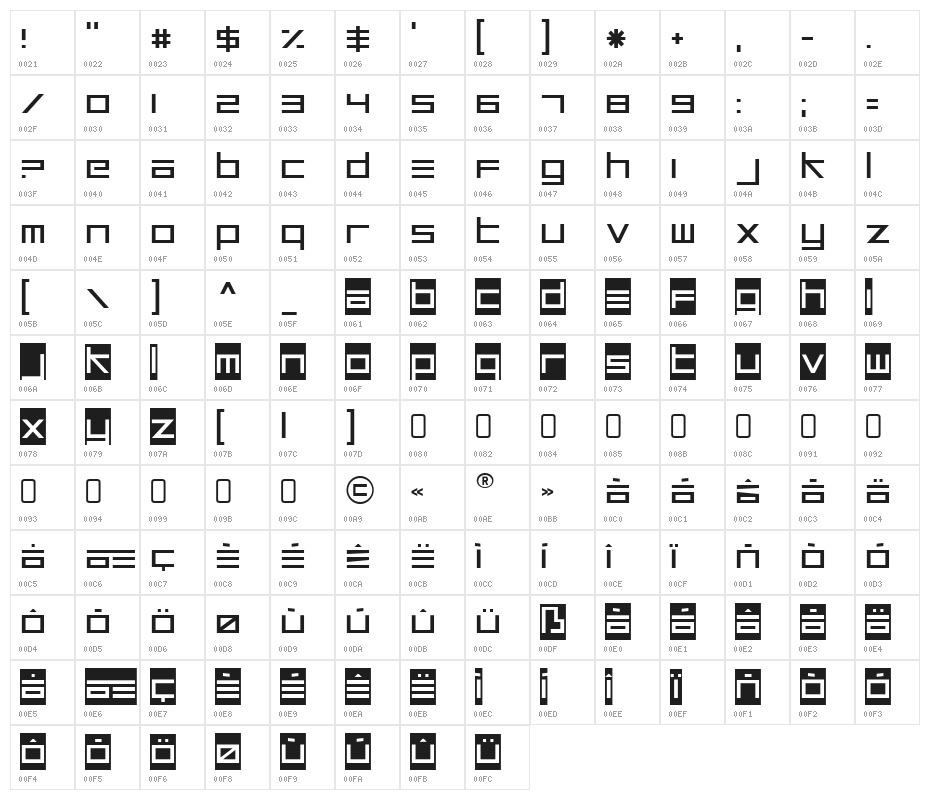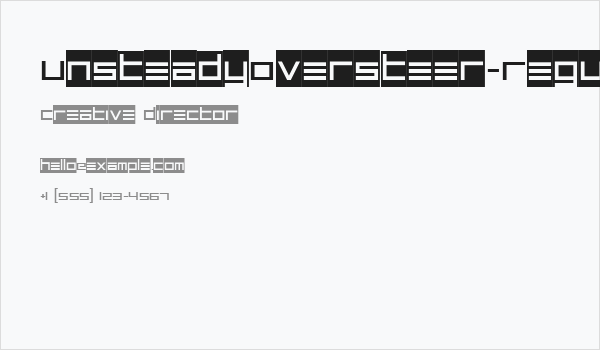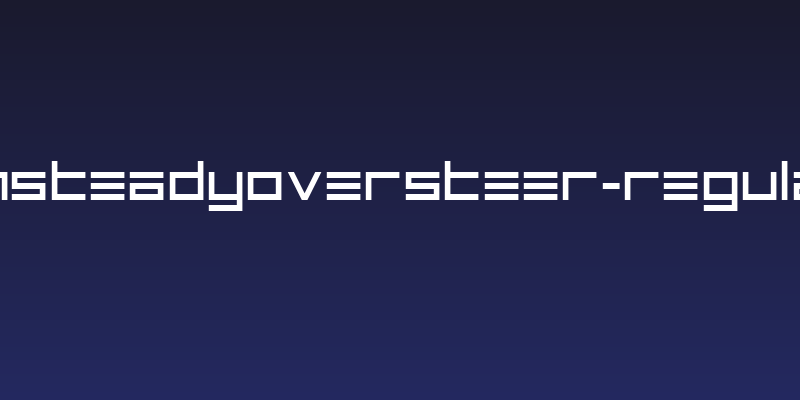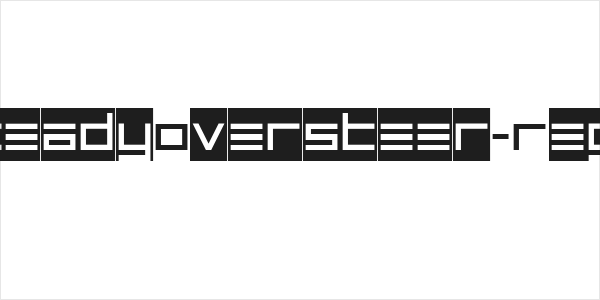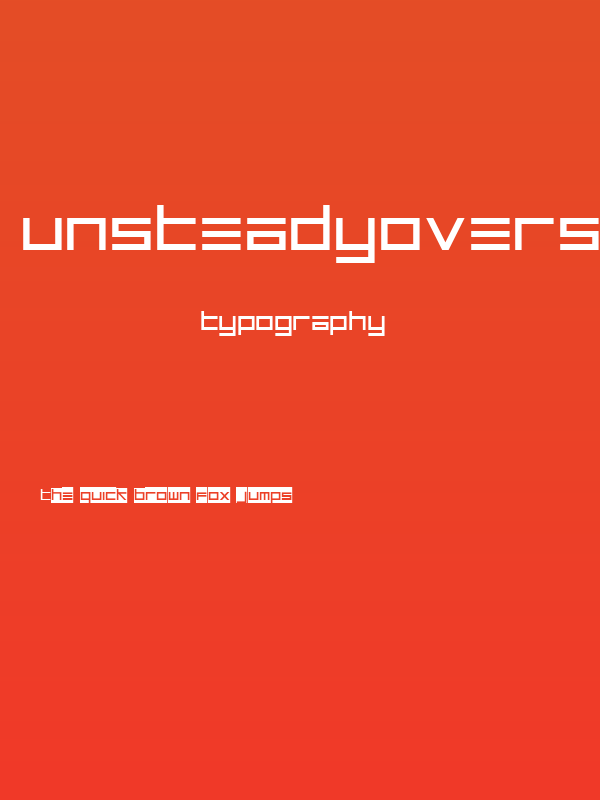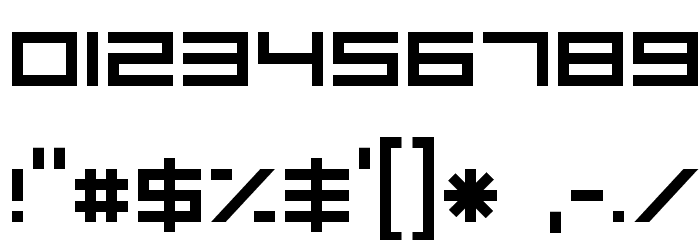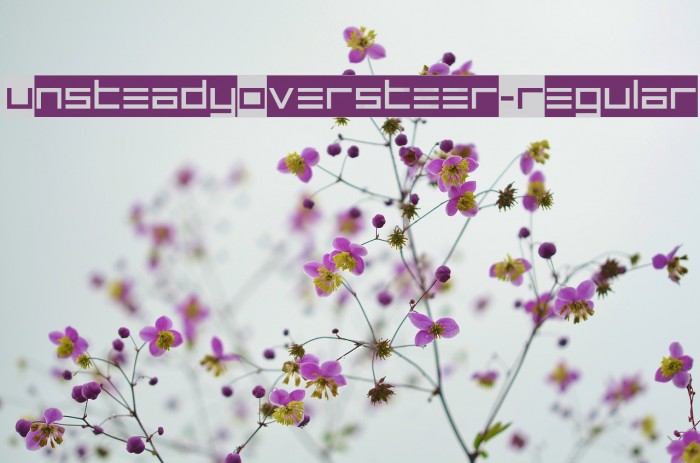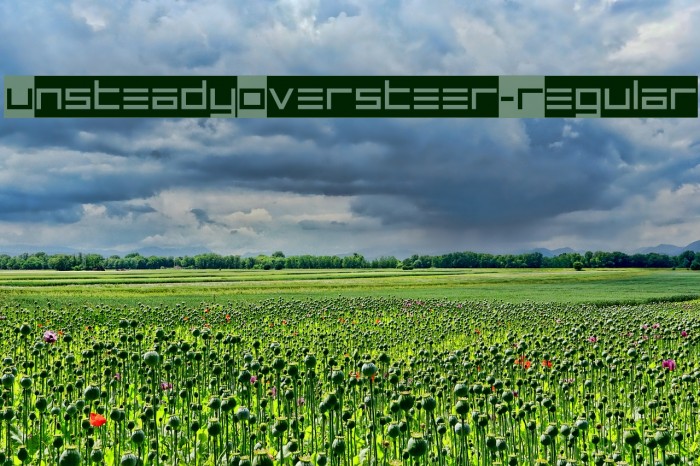
UnsteadyOversteer-Regular Font
UnsteadyOversteer-Regular Description
This font features a bold, geometric design with a futuristic aesthetic. The characters are constructed with straight lines and sharp angles, giving it a distinctly modern and digital feel. The uppercase and lowercase letters maintain a consistent style, with uniform stroke widths and a blocky appearance. The numerals and special characters follow the same design principles, ensuring a cohesive look across all glyphs. The font's structure is reminiscent of digital displays or retro video game graphics, making it ideal for projects that require a tech-savvy or avant-garde touch.
| Use Case | Logos, Headlines, Digital Interfaces |
| Proposed Projects | Ideal for tech-related branding, video game graphics, digital interfaces, and futuristic-themed posters. |